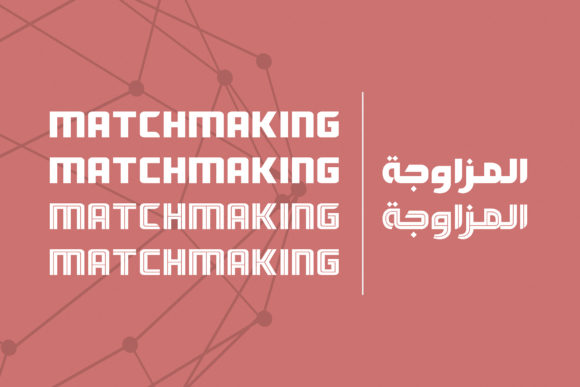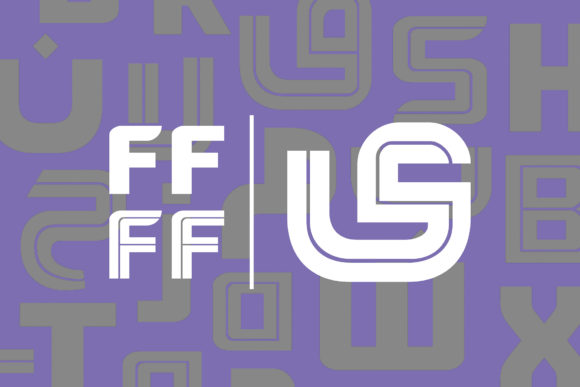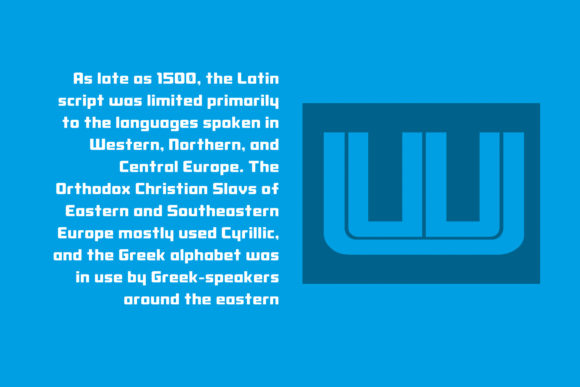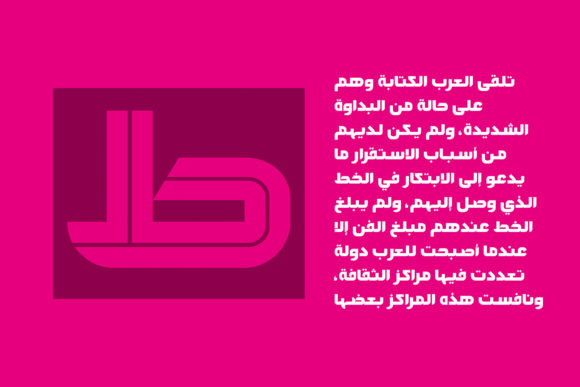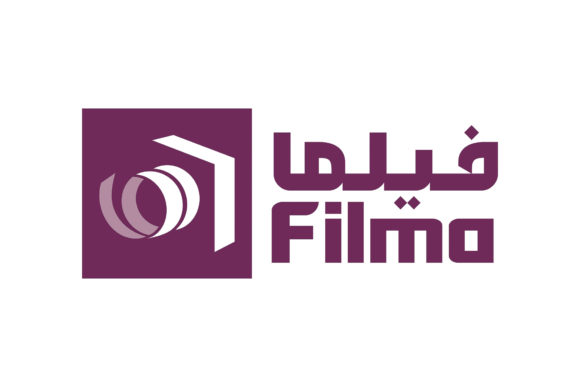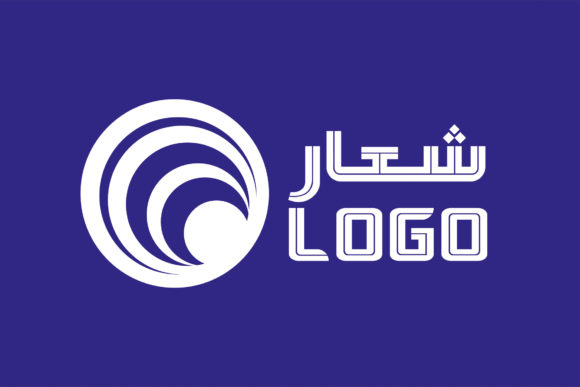
Introducing Ebtekar Pro Font: A Retro Display Font for Modern Designs
In the world of typography, fonts play a crucial role in conveying the tone and personality of a design. For designers and crafters looking for a unique and versatile font, Ebtekar Pro is an excellent choice. This retro family display font is designed to seamlessly mix Latin and Arabic scripts, making it an ideal choice for a wide range of design projects.
Geometric Structure for a Modern Look
Ebtekar Pro boasts a geometric structure that gives it a scientific, industrial, and technological atmosphere. This modern look makes it perfect for designs that require a touch of sophistication and elegance. The font’s sans-serif design ensures that it remains clean and legible, even at smaller font sizes.
Extensive Character Set for Multilingual Support
One of the standout features of Ebtekar Pro is its extensive character set, which supports Latin, Arabic, Farsi, Urdu, and Pashto languages. This makes it an excellent choice for designers who work with clients from diverse linguistic backgrounds. Whether you’re designing a website, brochure, or business card, Ebtekar Pro has got you covered.
Two Distinct Styles for Added Versatility
Ebtekar Pro offers two distinct styles: normal and inline. The normal style is perfect for headlines, titles, and other display text, while the inline style adds a touch of elegance and sophistication to your designs. This versatility makes Ebtekar Pro an excellent choice for a wide range of design projects, from branding and advertising to packaging and editorial design.
Perfect for Mixing Latin and Arabic Scripts
Ebtekar Pro is specifically designed to mix Latin and Arabic scripts seamlessly. This makes it an excellent choice for designers who work with clients from the Middle East or North Africa, or for projects that require a multilingual approach. The font’s geometric structure ensures that both scripts are legible and visually appealing.
Use Cases for Ebtekar Pro
Ebtekar Pro is an incredibly versatile font that can be used in a wide range of design projects, including:
- Branding and advertising: Use Ebtekar Pro to create bold and eye-catching headlines that grab attention.
- Editorial design: Ebtekar Pro is perfect for magazine and newspaper headlines, as well as book titles and subtitles.
- Packaging design: Add a touch of sophistication and elegance to your packaging designs with Ebtekar Pro.
- Web design: Use Ebtekar Pro to create visually appealing headings and titles for your website.
Tips for Using Ebtekar Pro
To get the most out of Ebtekar Pro, here are a few tips:
- Experiment with different font sizes: Ebtekar Pro looks great at both large and small font sizes.
- Mix and match styles: Combine the normal and inline styles to create visually appealing headings and titles.
- Use it with other fonts: Ebtekar Pro pairs well with other sans-serif fonts, such as Open Sans or Montserrat.
Ebtekar Pro is an exceptional font that offers a unique combination of style, versatility, and functionality. Its geometric structure, extensive character set, and two distinct styles make it an excellent choice for designers and crafters looking for a reliable and elegant font. Whether you’re working on a branding project, editorial design, or packaging design, Ebtekar Pro is sure to impress.